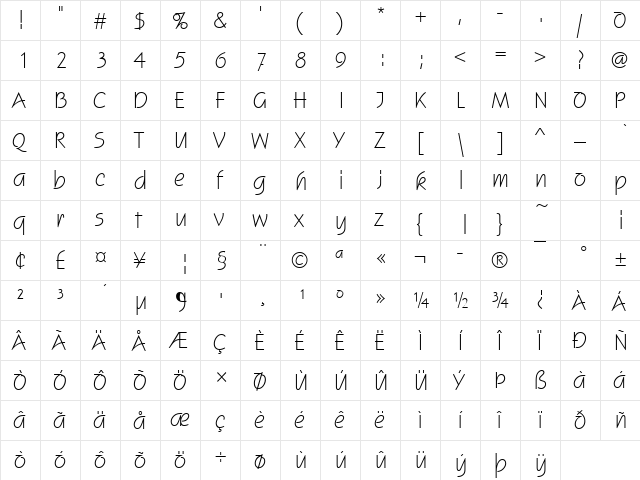
UVN Giay Trang Regular Font Preview
UVN Giay Trang Regular
UVN Giay Trang Regular Font Details
Design Context for UVN Giay Trang Typeface
UVN Giay Trang offers clean, dependable letterforms without strong stylistic allegiance, making it a practical choice for designers who need flexibility.